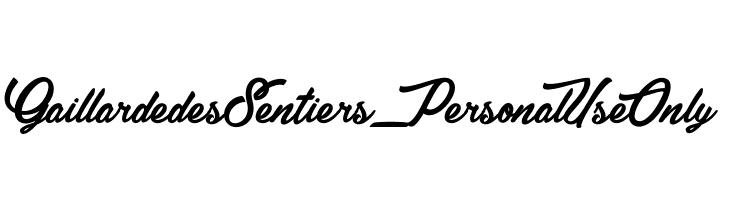
An elegant and flowing script font with modern swashes and flourishes.
Expressive handwritten script font.
A graceful and decorative script font.
Casual handwritten script with tall, narrow forms and decorative swashes.